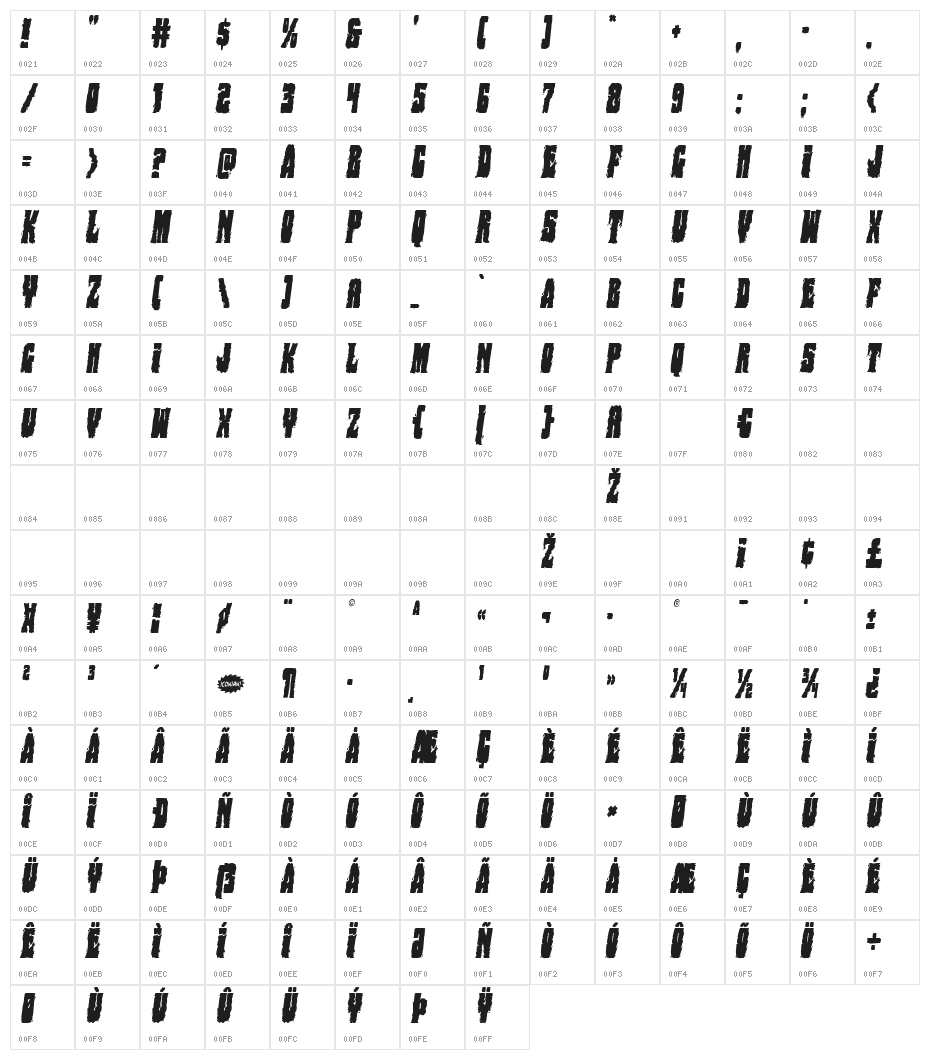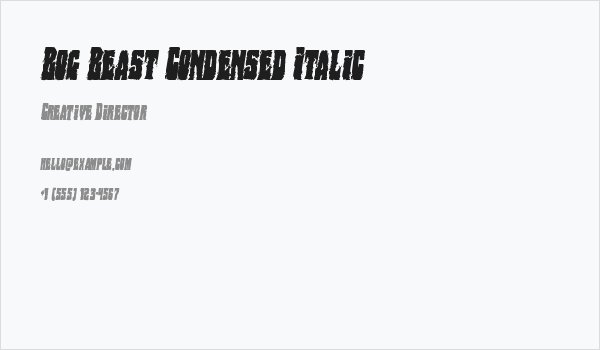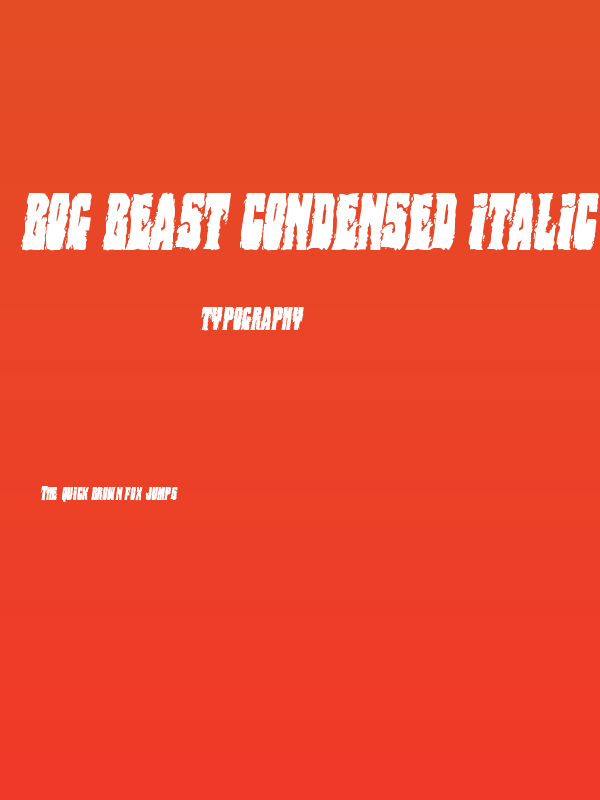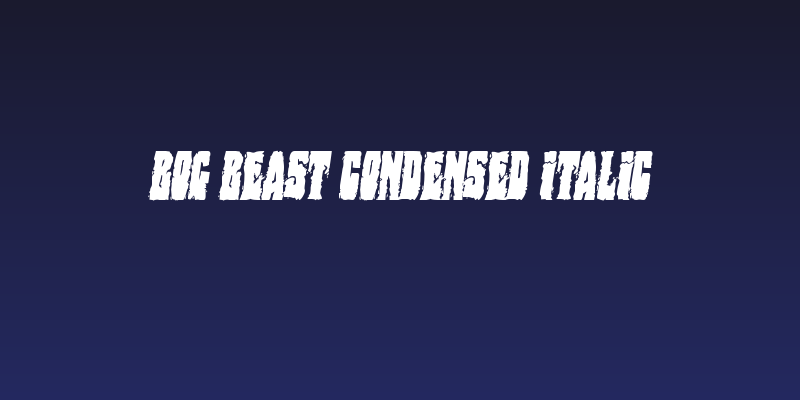
Bog Beast Condensed Italic Font
Bog Beast Condensed Italic Description
This font features a bold, rugged design with a condensed and italicized style. The characters are heavily textured, giving them a distressed and organic appearance, reminiscent of rough, natural elements. The uppercase and lowercase letters maintain a consistent height, contributing to a uniform look across the text. The numerals and special characters share the same bold and textured characteristics, ensuring a cohesive appearance throughout. The font's unique style makes it suitable for projects that require a strong, impactful visual presence.
| Proposed Projects | Ideal for horror-themed posters, adventure branding, video game titles, and any design needing a bold, gritty aesthetic. |